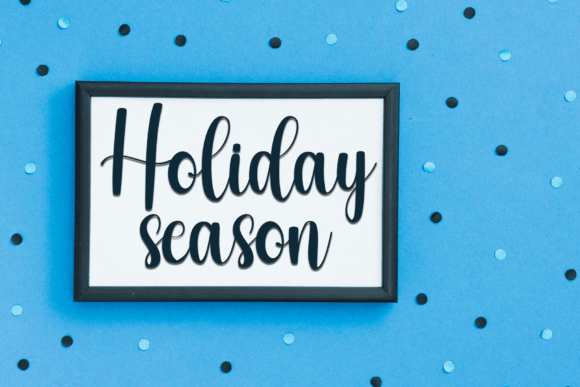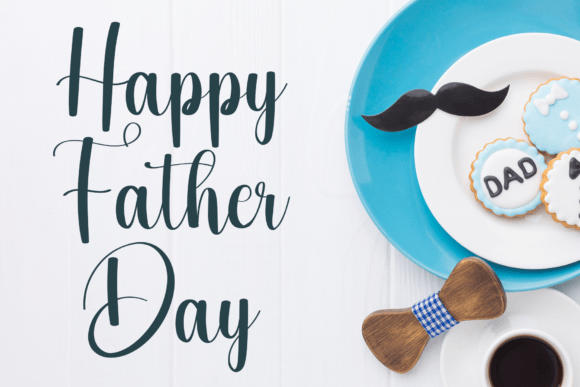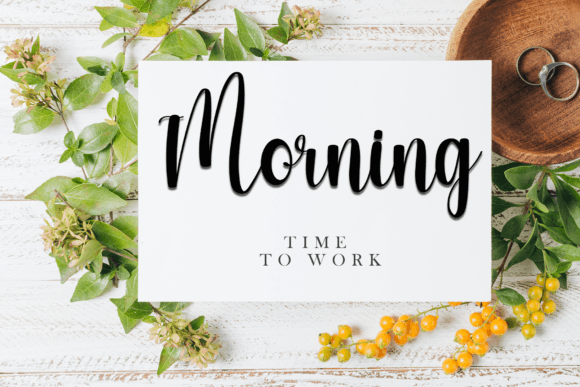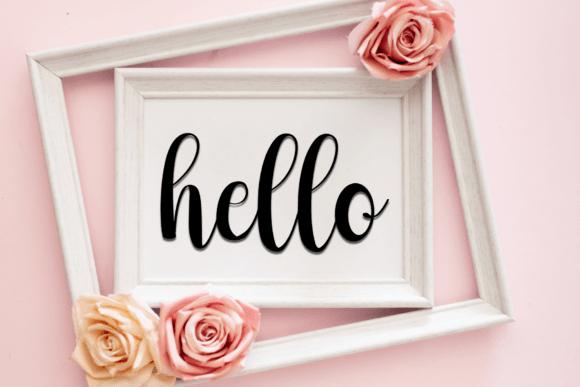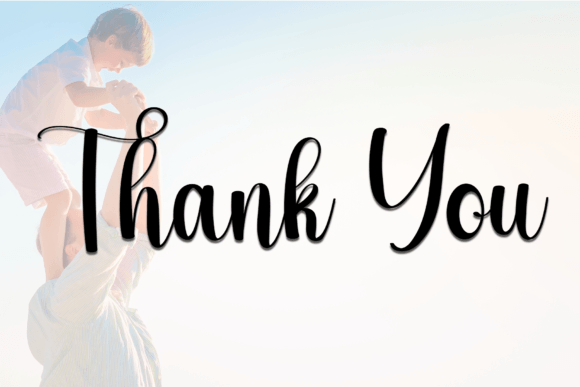
Daddy Font: Elevate Your Design with Elegant Handwritten Style
In the world of typography, fonts play a crucial role in conveying the tone and personality of a design. For designers and crafters looking to add a touch of elegance and whimsy to their work, the Daddy Font is an excellent choice. This gorgeous handwritten font is designed to make your work stand out with its elegant and curvy lines, perfect for a variety of creative projects.
What is Daddy Font?
Daddy Font is a beautiful, handwritten typeface that exudes a sense of sophistication and charm. Its elegant and curvy lines give it a unique and distinctive look that sets it apart from other fonts. This font is perfect for designers and crafters who want to add a personal touch to their work, making it ideal for projects that require a sweet and handwritten feel.
The versatility of Daddy Font makes it suitable for a wide range of creative projects. Whether you’re working on product packaging, branding projects, magazine covers, social media posts, or wedding designs, this font is sure to make your work stand out. Its elegant and curvy lines add a touch of sophistication and whimsy, making it perfect for:
- Product packaging: Add a personal touch to your product packaging with Daddy Font, making it more appealing to customers.
- Branding projects: Use Daddy Font to create a unique and recognizable brand identity that sets you apart from the competition.
- Magazine covers: Create eye-catching magazine covers with Daddy Font, drawing readers in with its elegant and curvy lines.
- Social media posts: Add a touch of personality to your social media posts with Daddy Font, making them more engaging and shareable.
- Weddings: Use Daddy Font to create beautiful wedding designs, such as invitations, programs, and place cards, that exude elegance and sophistication.
Why Choose Daddy Font?
With so many fonts available, why choose Daddy Font? Here are just a few reasons why designers and crafters love this font:
- Elegant and curvy lines: Daddy Font features beautiful, elegant, and curvy lines that add a touch of sophistication to any design.
- Handwritten feel: This font has a sweet, handwritten feel that’s perfect for designers and crafters looking to add a personal touch to their work.
- Versatile: Daddy Font is suitable for a wide range of creative projects, from product packaging to wedding designs.
Tips for Using Daddy Font
To get the most out of Daddy Font, here are a few tips to keep in mind:
- Use it sparingly: While Daddy Font is beautiful, it’s best to use it sparingly to avoid overwhelming the design.
- Pair it with other fonts: Daddy Font pairs well with other fonts, so don’t be afraid to experiment with different combinations.
- Adjust the size and color: Adjust the size and color of Daddy Font to fit your design, making sure it complements the overall aesthetic.
In conclusion, Daddy Font is a gorgeous handwritten font that’s perfect for designers and crafters looking to add a touch of elegance and whimsy to their work. Its elegant and curvy lines make it suitable for a wide range of creative projects, from product packaging to wedding designs. With its ease of use and versatility, Daddy Font is an excellent choice for anyone looking to elevate their design with a sweet and handwritten touch.